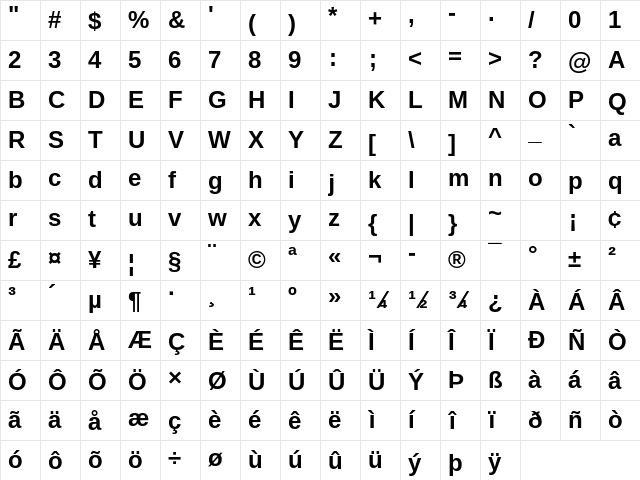
Arimo Nerd Font Mono Bold
Foundry: Monotype Imaging Inc.
Designer: Steve Matteson
Complete Arimo Nerd Font Mono Bold glyph index. Displaying only characters natively supported by Arimo Nerd Font Mono Bold font.
Design Context for Arimo Nerd Font Mono
Arimo Nerd Font Mono uses fixed-width spacing throughout, giving it the structured, systematic character associated with coding environments and technical documentation. Its bold stroke weight gives it real presence on the page.